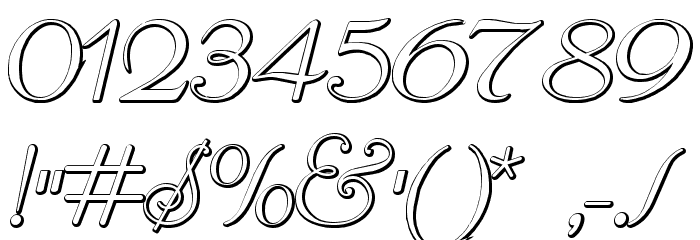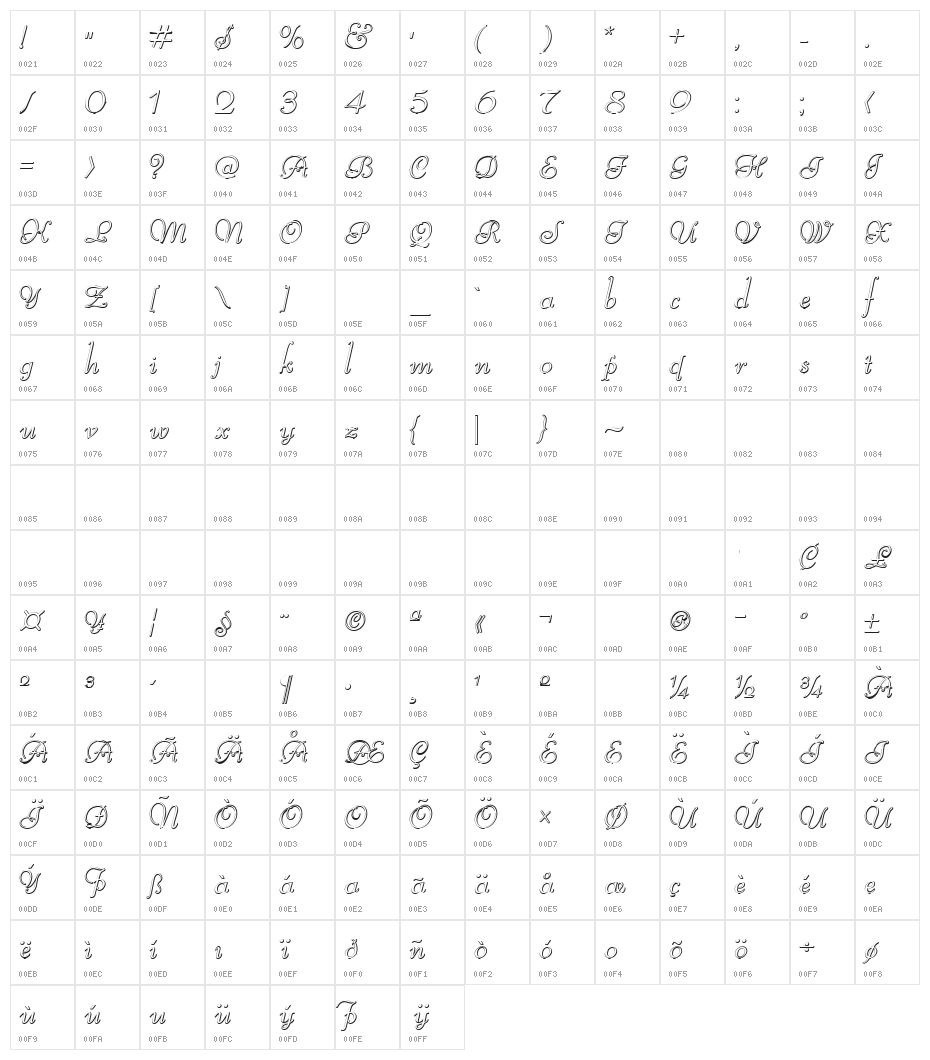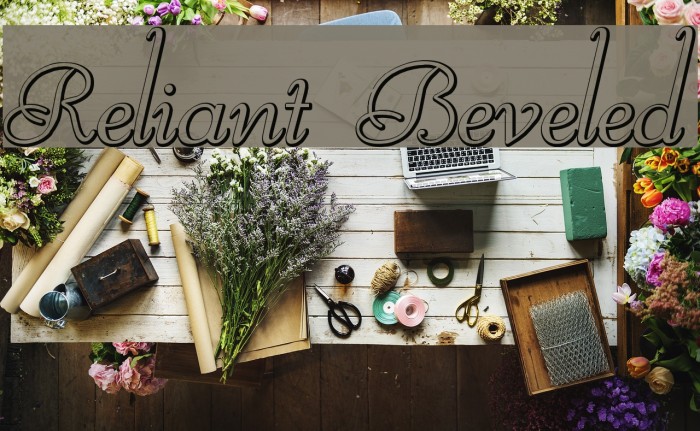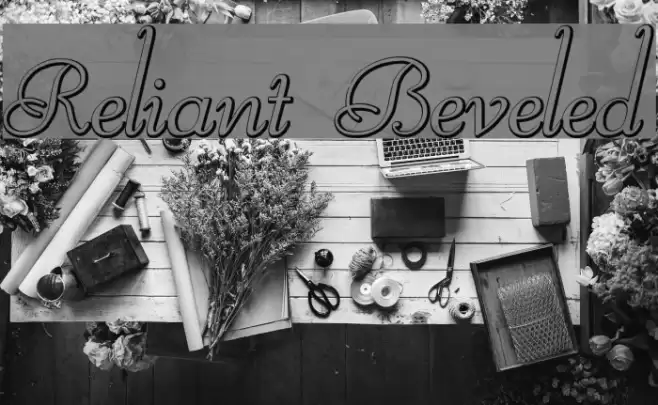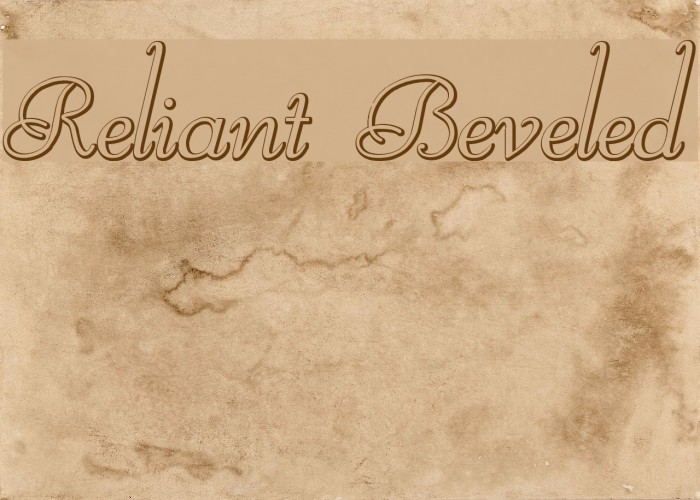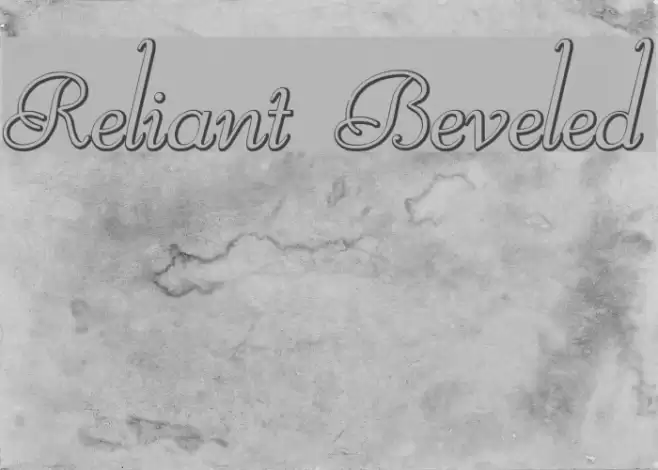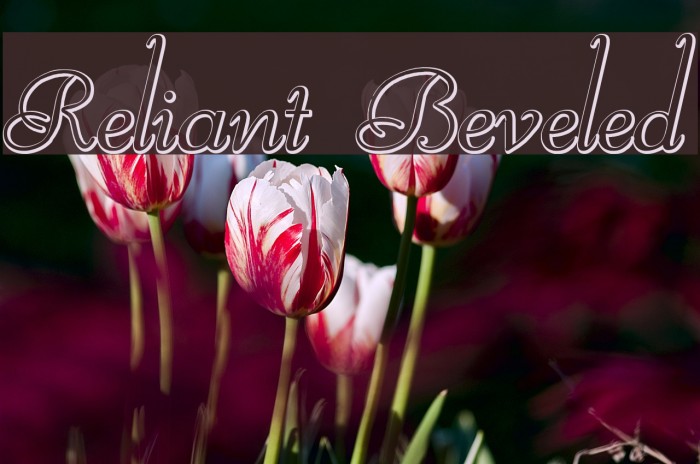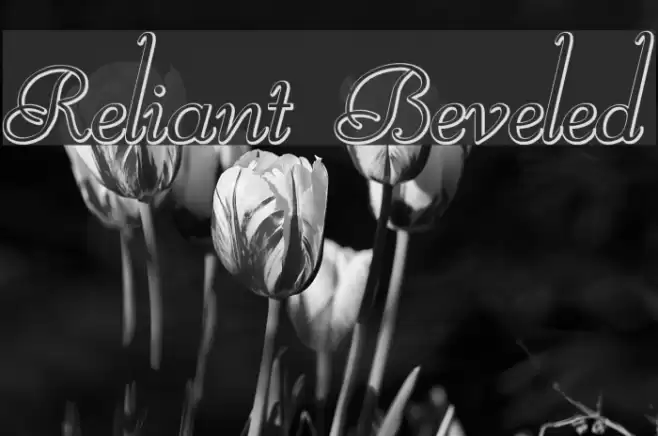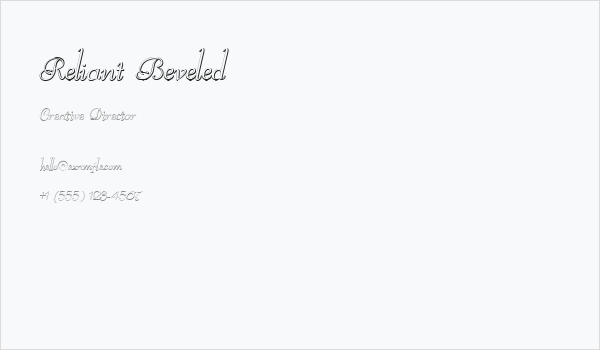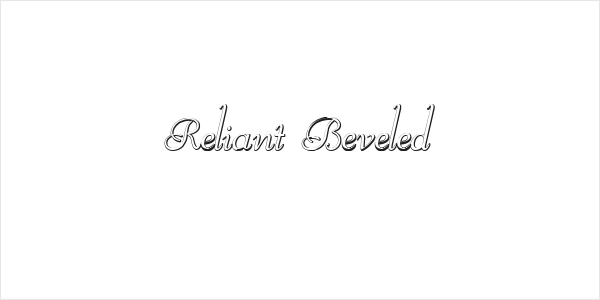
Reliant Beveled Font
Reliant Beveled Description
This font features a distinctive beveled edge that gives it a three-dimensional appearance, making it stand out on any page. The uppercase letters are bold and commanding, with a slight slant that adds a sense of motion and elegance. The lowercase letters maintain a consistent style, offering a harmonious blend with the uppercase. Numbers and special characters are crafted with the same attention to detail, ensuring uniformity across all text. The font's unique style is both decorative and functional, suitable for a variety of design needs.